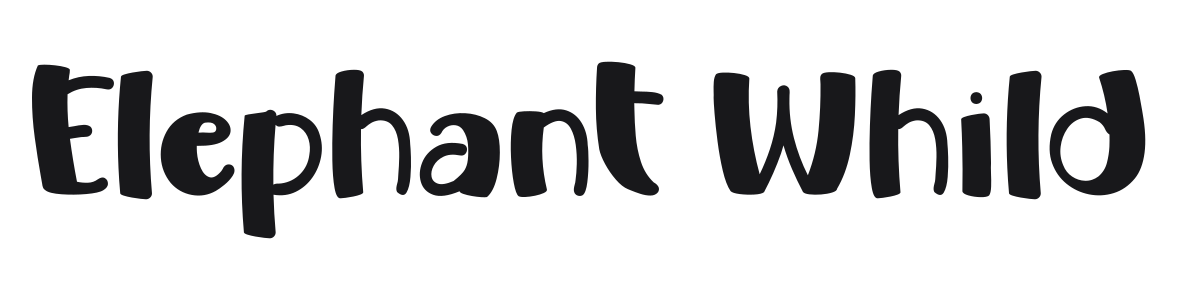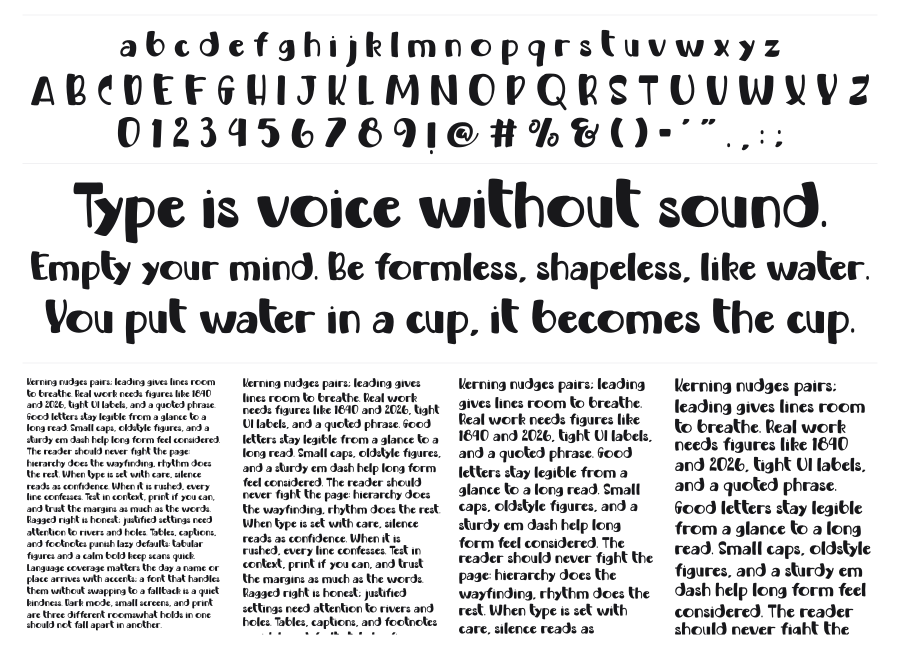
Elephant Whild
Elephant WhildLicense is a heavy, hand-drawn display font with chunky rounded characters and a lively irregularity to each stroke. The wide, bold proportions and organic weight variation give it an expressive comic-book energy. It draws attention at large sizes and suits branding aimed at fun, youth, or casual audiences.